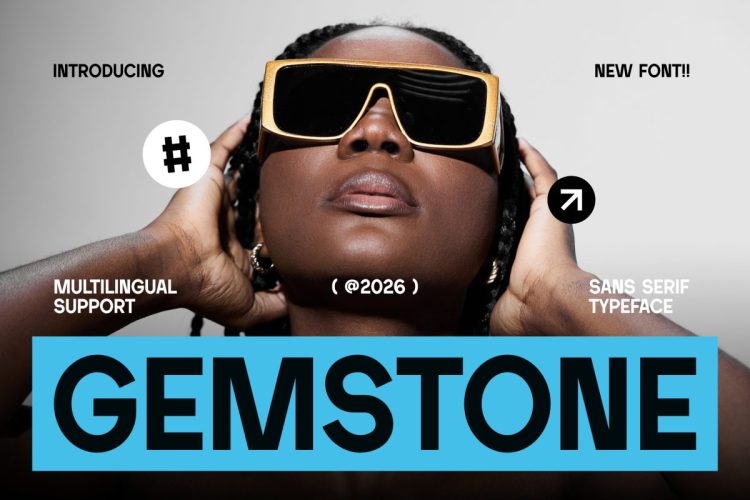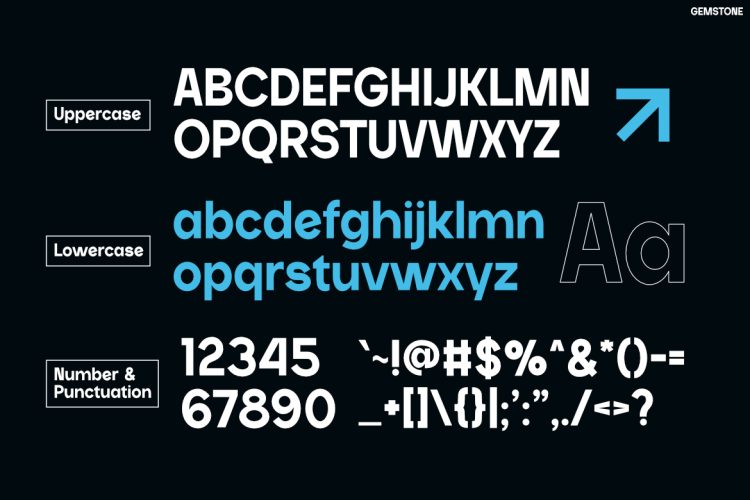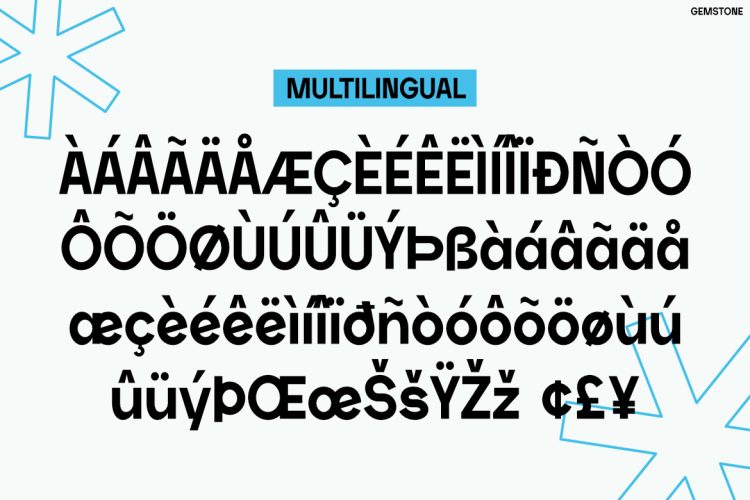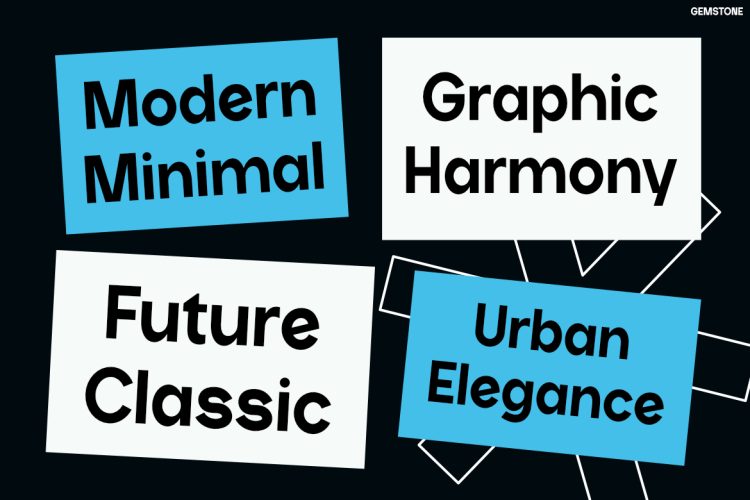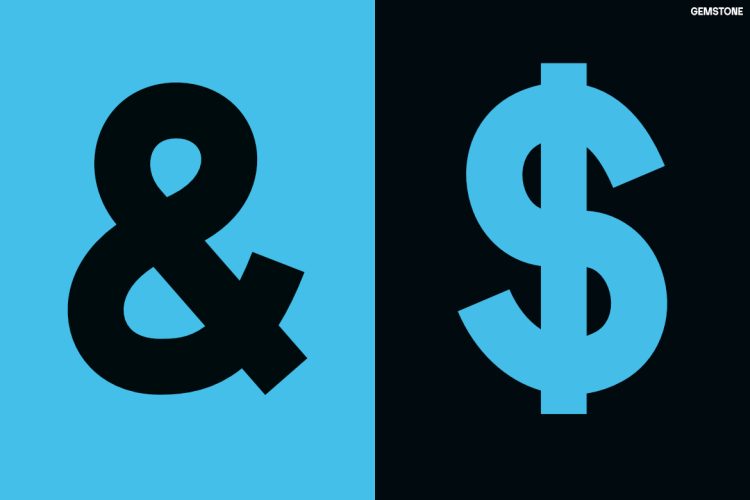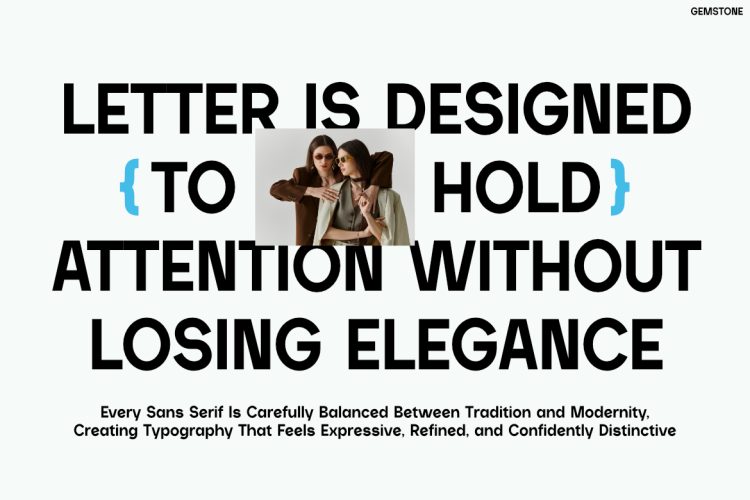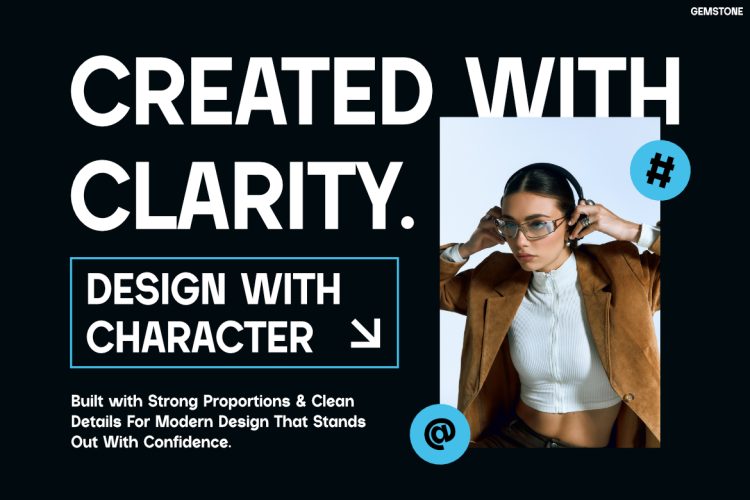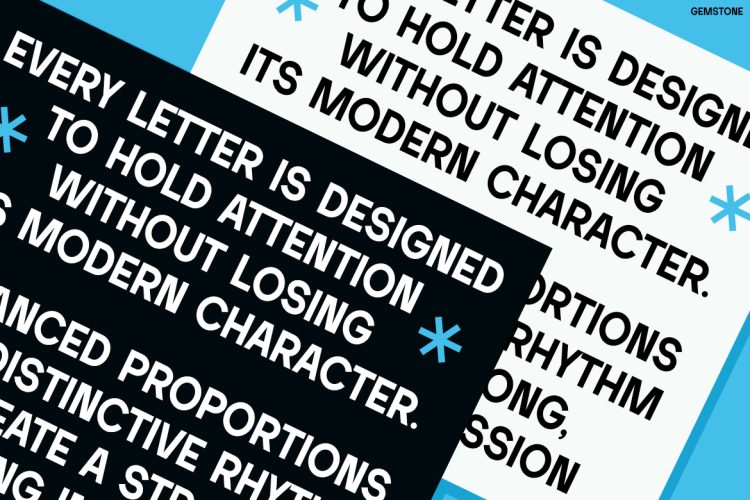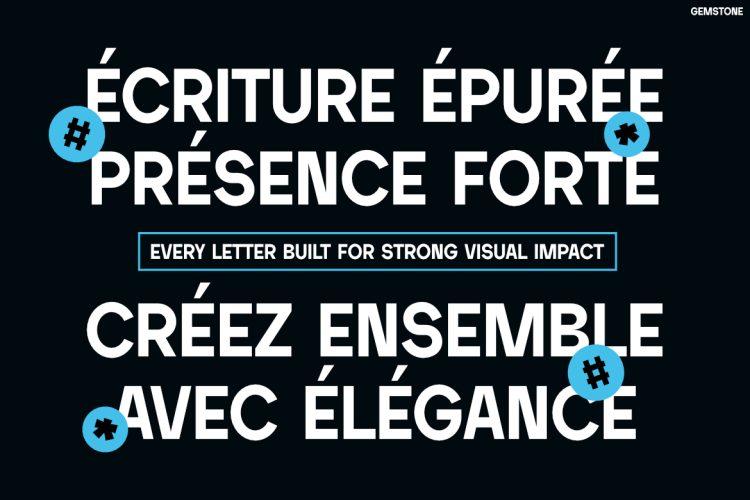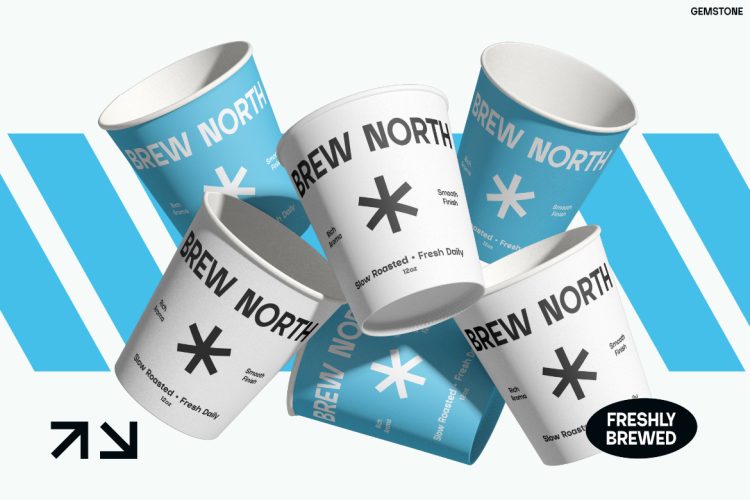
GEMSTONE โ Clean. Bold. Sharp. Effortlessly Modern.
Modern Font Gemstone is a sleek display typeface designed for brands that want a clean, confident, and contemporary identity. First of all, its geometric letterforms create an immediate visual impact. At the same time, smooth curves give the characters a balanced and approachable feel. Moreover, the bold construction makes headlines highly visible. Meanwhile, its clean details keep the overall design polished and easy to read. In addition, distinctive characters such as the ampersand bring extra personality to modern layouts. As a result, Gemstone feels fresh without becoming overly complicated. Furthermore, its versatile style works naturally across digital, editorial, fashion, and branding projects. Plus, it supports 67 languages, making it a practical choice for global creative work.
Modern Font Gemstone Perfect For
Gemstone is built for designers who want modern typography with a strong visual personality. For example, it works beautifully for logos, brand identities, fashion campaigns, technology products, editorial designs, posters, packaging, and social media graphics. Likewise, its geometric forms pair smoothly with minimalist layouts. On the other hand, its bold weight can also handle expressive compositions and attention-grabbing headlines. Additionally, uppercase and lowercase characters provide useful flexibility for different design styles. Therefore, you can create anything from sharp brand names to impactful campaign headlines. Consequently, Gemstone helps your typography stay memorable while maintaining a professional appearance.
Who Can Use It?
- Tech & Digital Brands
- Fashion & Lifestyle Brands
- Creative Agencies
- Graphic Designers
- Editorial Designers
- Advertising Studios
- Packaging Designers
- Social Media Creators
- Startups & Modern Businesses
Make Modern Type Stand Out
If you want a typeface that feels clean, bold, and current, Modern Font Gemstone is ready to elevate your next project. So, bring its distinctive geometry into your branding, campaigns, packaging, or editorial layouts. Not only will it make your headlines stronger, but it will also give your visual identity a confident modern voice. Ultimately, Gemstone turns simple typography into a bold statement that feels fresh, professional, and ready for todayโs market.